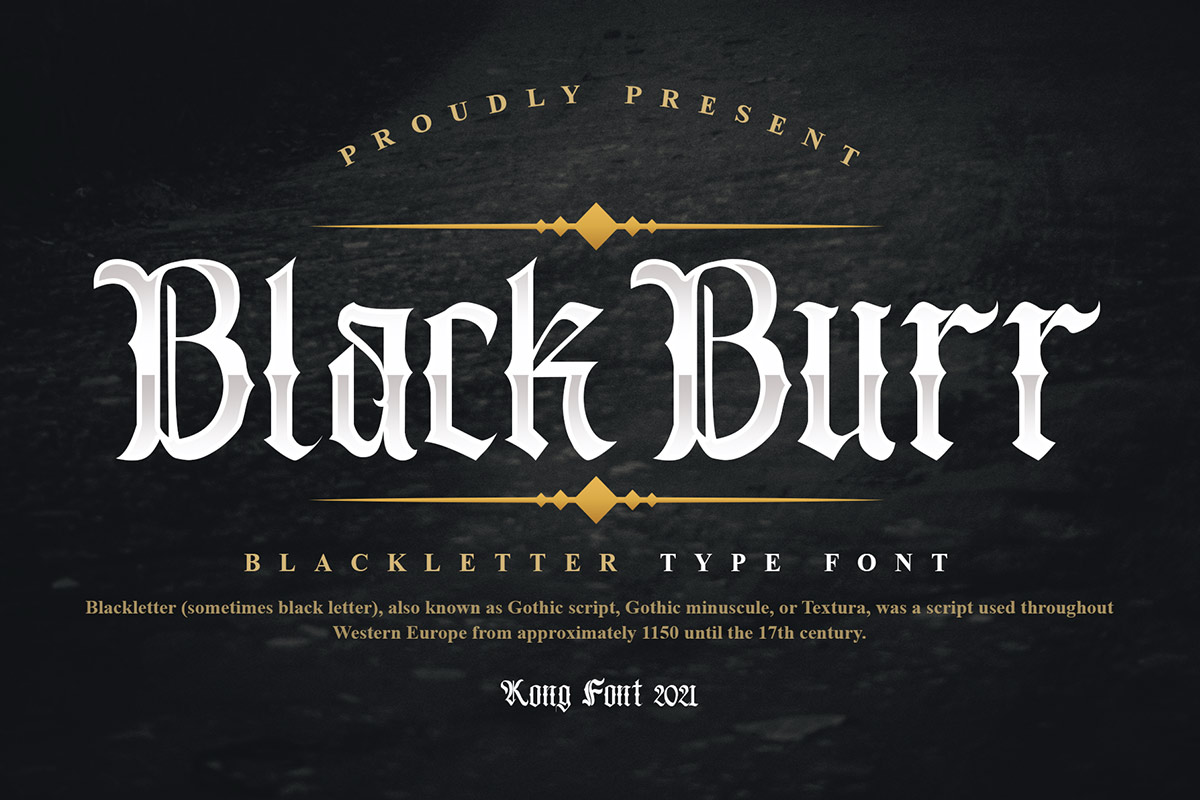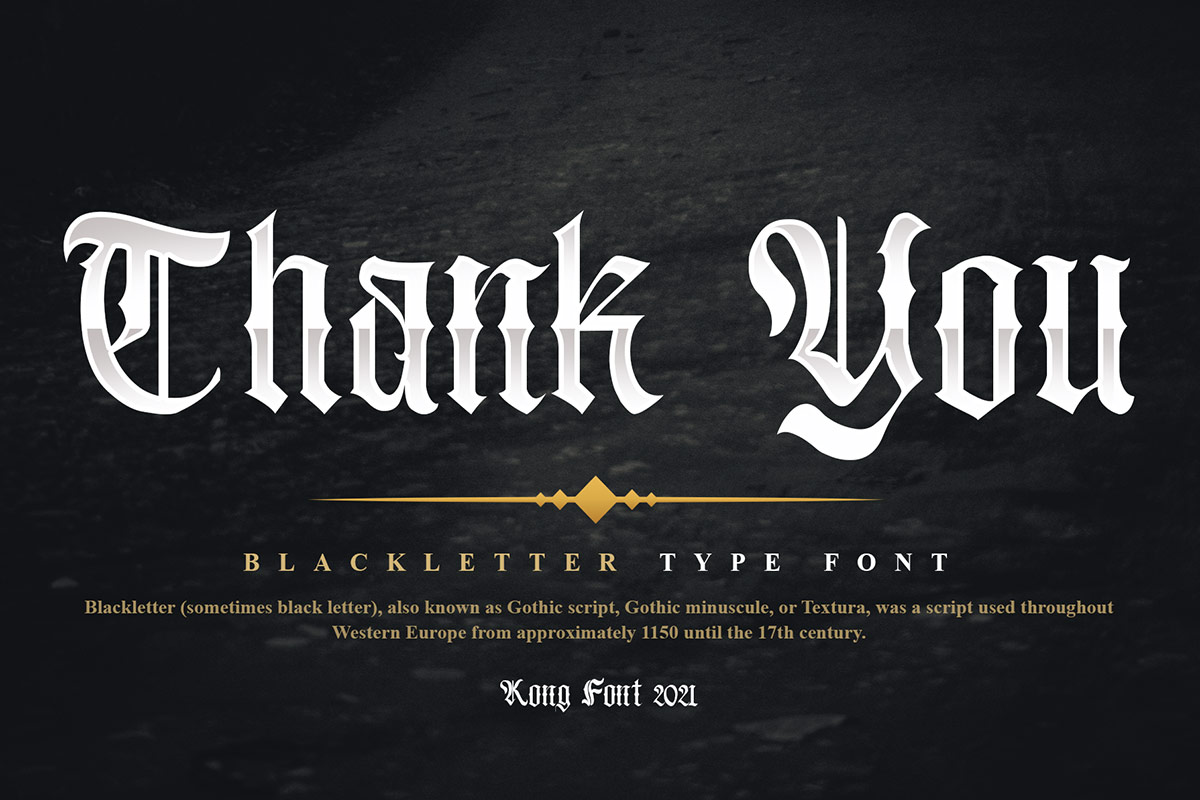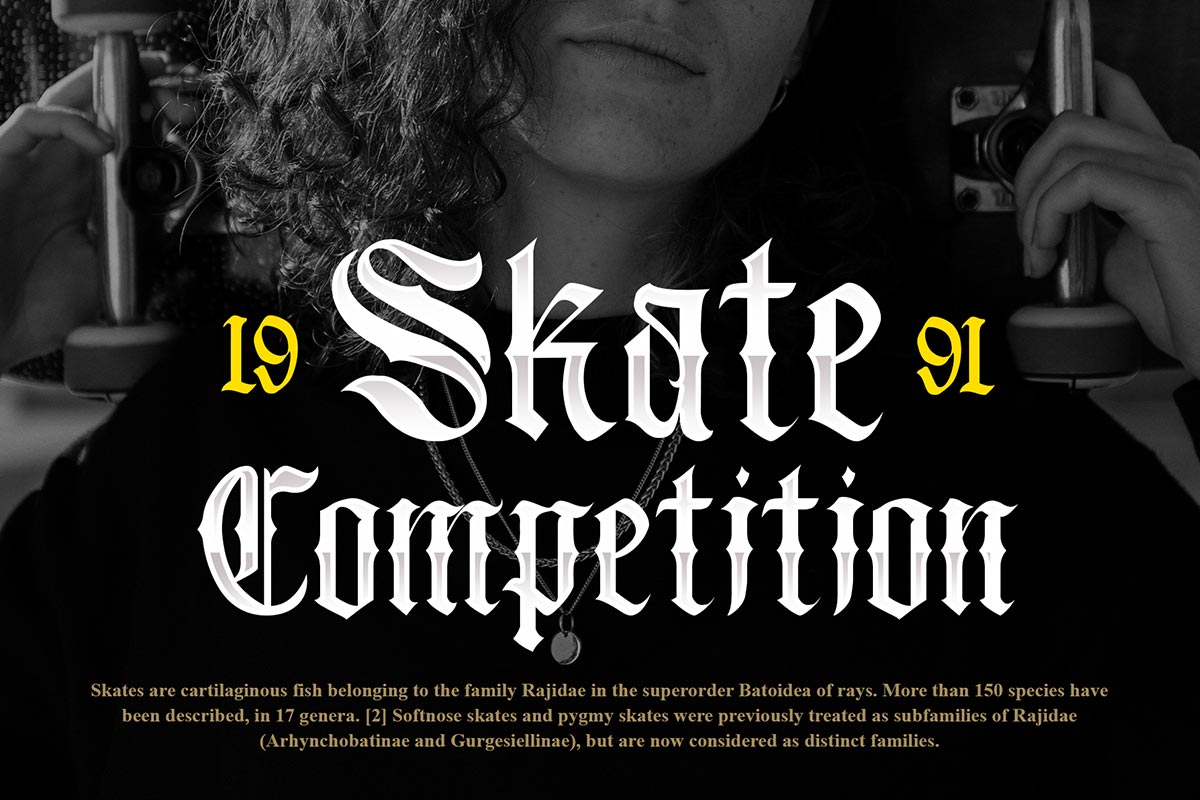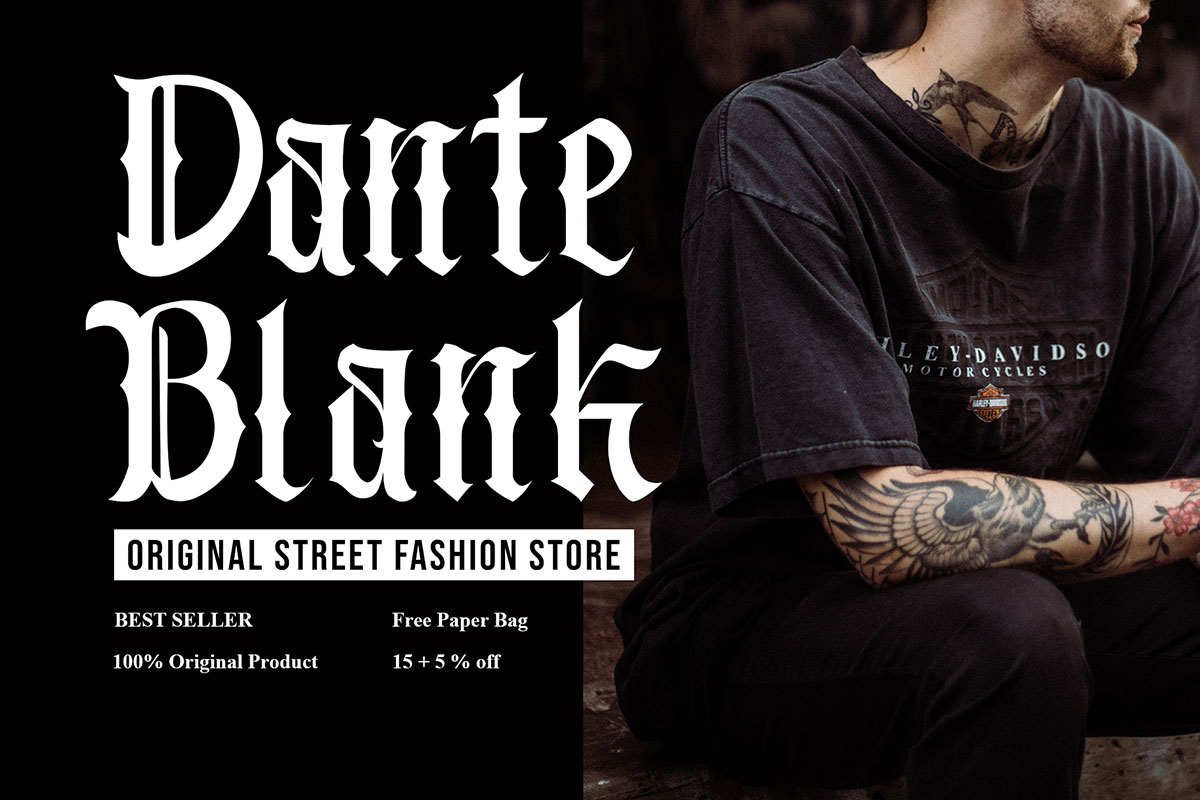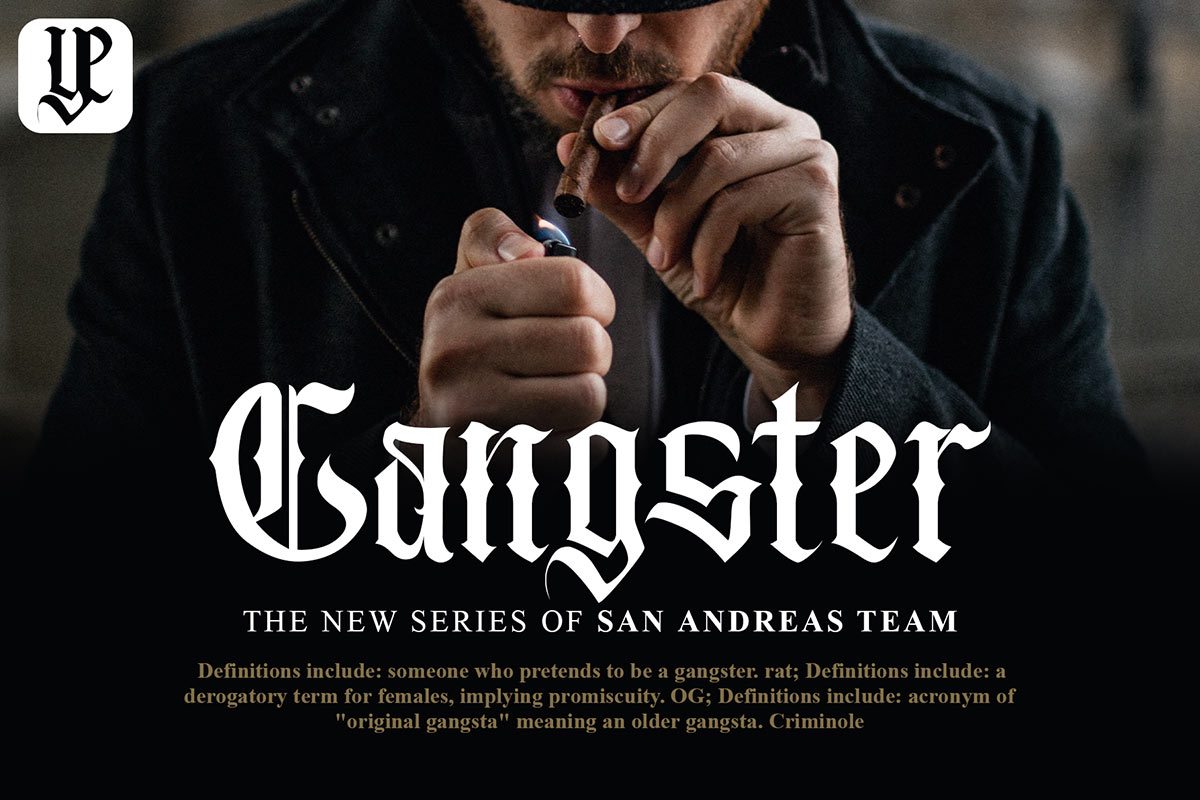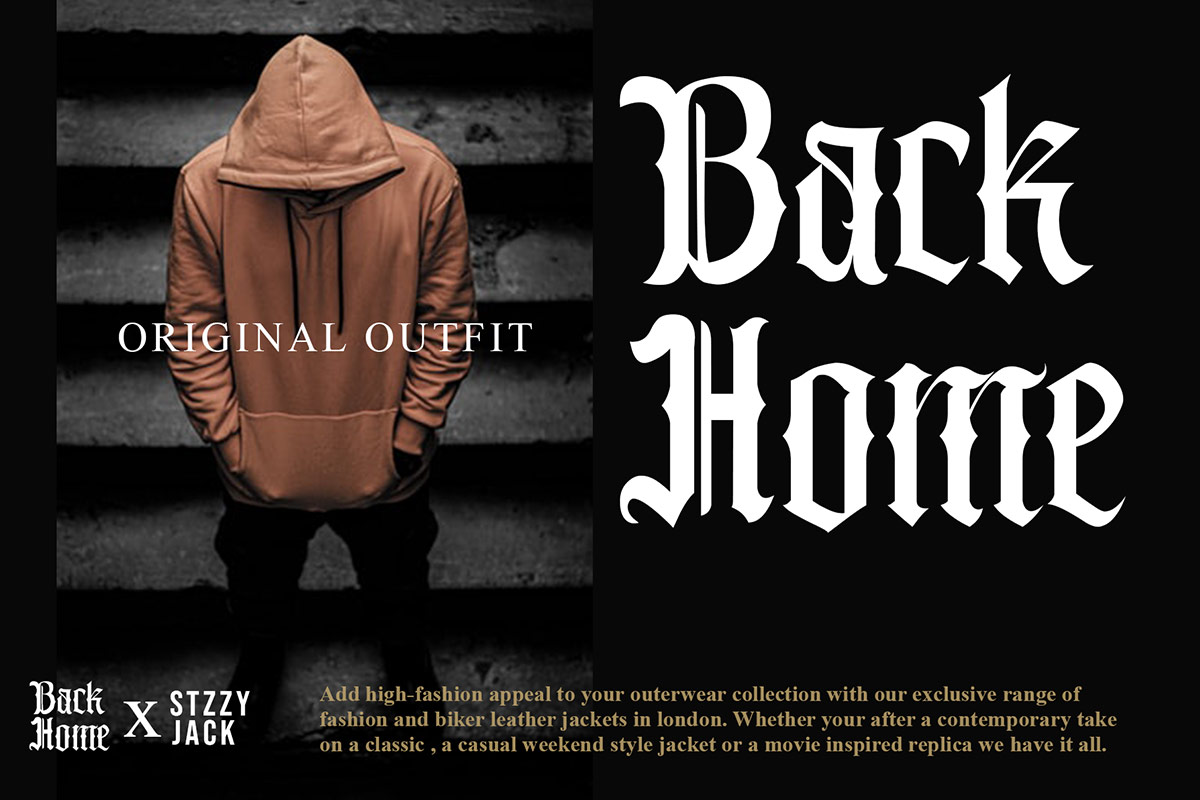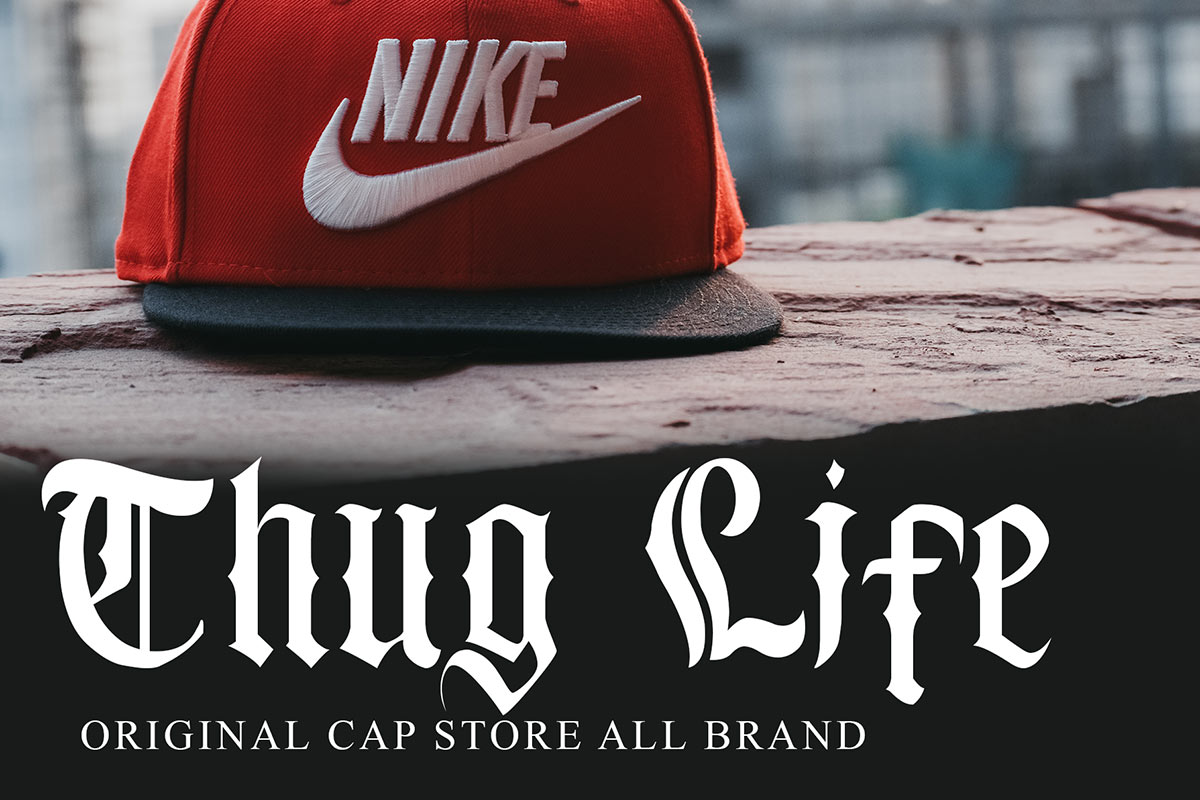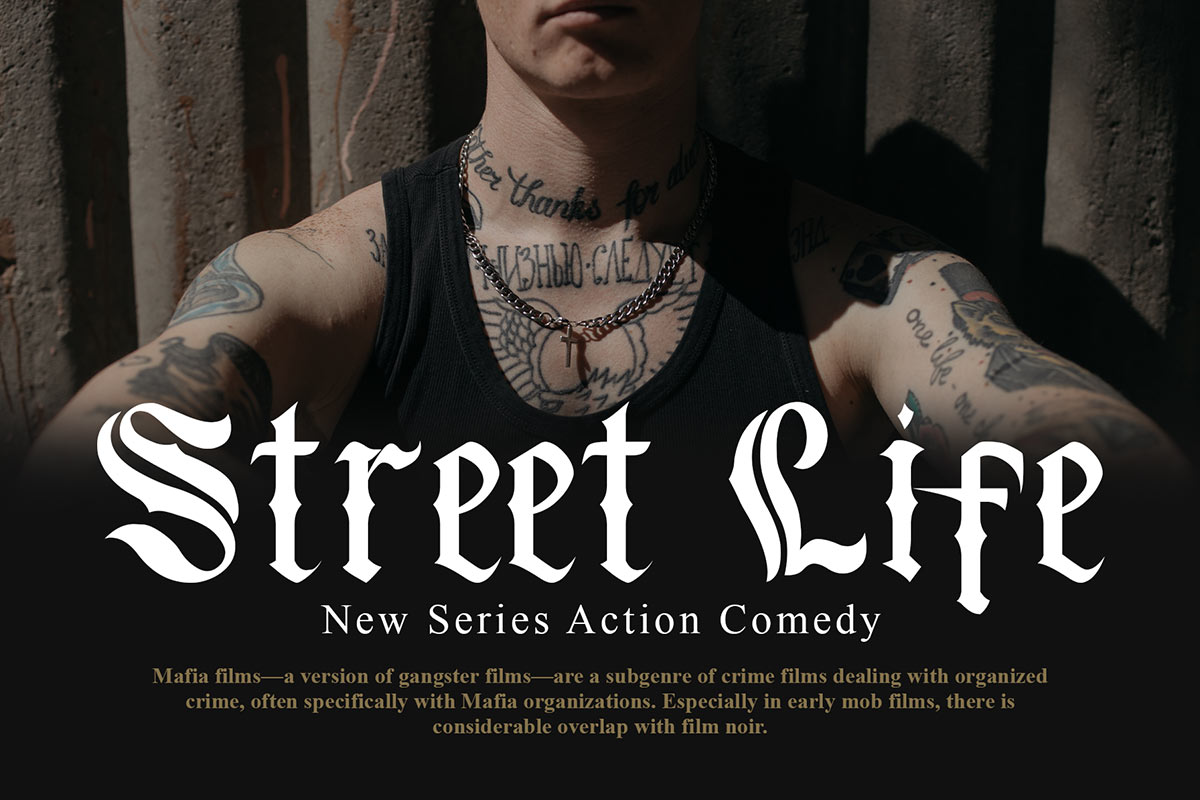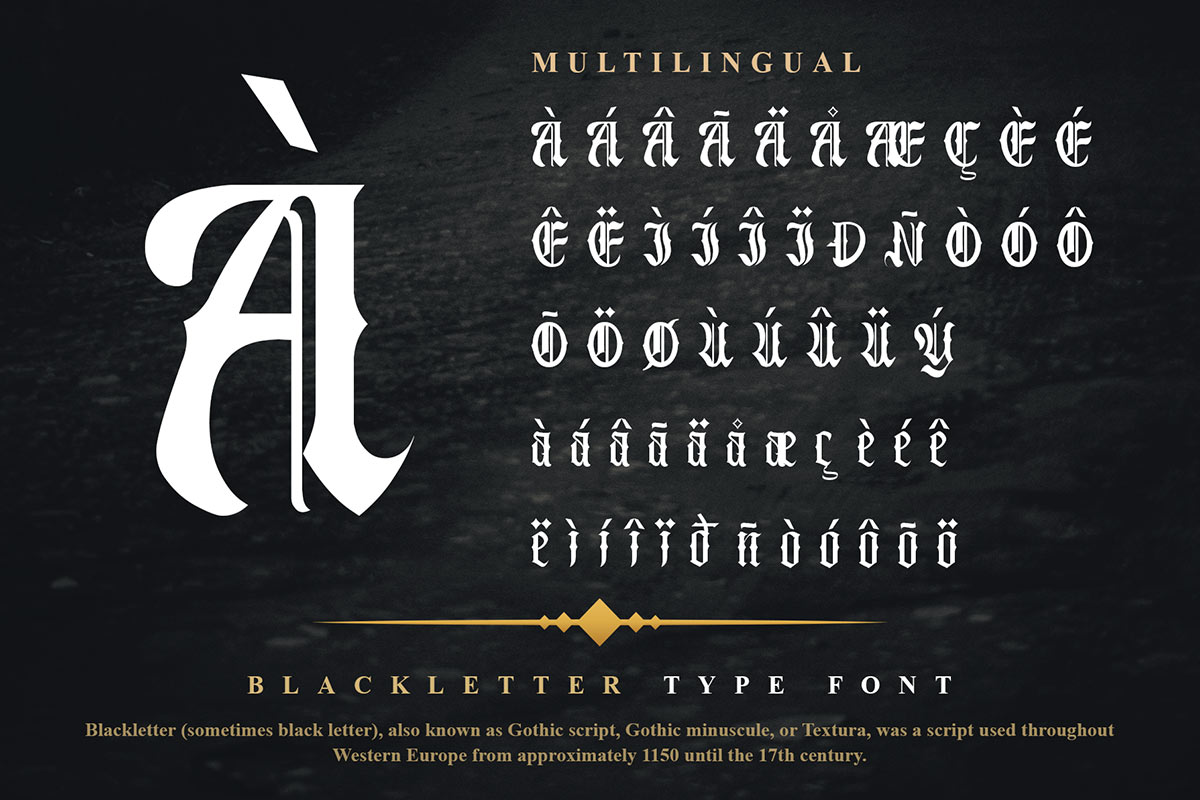
Black Burr Modern Medieval Font Kong Font is here to bring you a variety of new fonts every day. We are happy to provide unique and interesting fonts for you to use in the form of digital or print. In addition, we have provided different types of files according to your order. Black Burr Modern Medieval Font is a font re-created to turn on the Blackletter font variety. Let's look at what different things can be found about the characteristics of this font. This font has a curved bold font shape at the end. Not only that, if you look closely at this font, you will see some of the letters a little like calligraphy with a wide version. From this explanation, you can find other characteristics of this font that are no less unique. The uniqueness of this font will be in vain if not used with the theme, object, and font size that is appropriate. We can observe that Black Burr Modern Medieval Font is the best font to use for product branding. It can be used as a brand font, shop board, and advertising. Another thing that is suitable to be combined with this font is the film title. Classic and modern impressions can make anyone fascinated when they see it. Our collection of blackletter fonts is compatible to be used as font figures, Canvas font, Freepik font, and Adobe font. They also work as Windows and Apple Fonts. For your social media needs, you can use and install fonts in our Blackletter font collection to be used as Instagram fonts, Facebook fonts, and Twitter fonts.